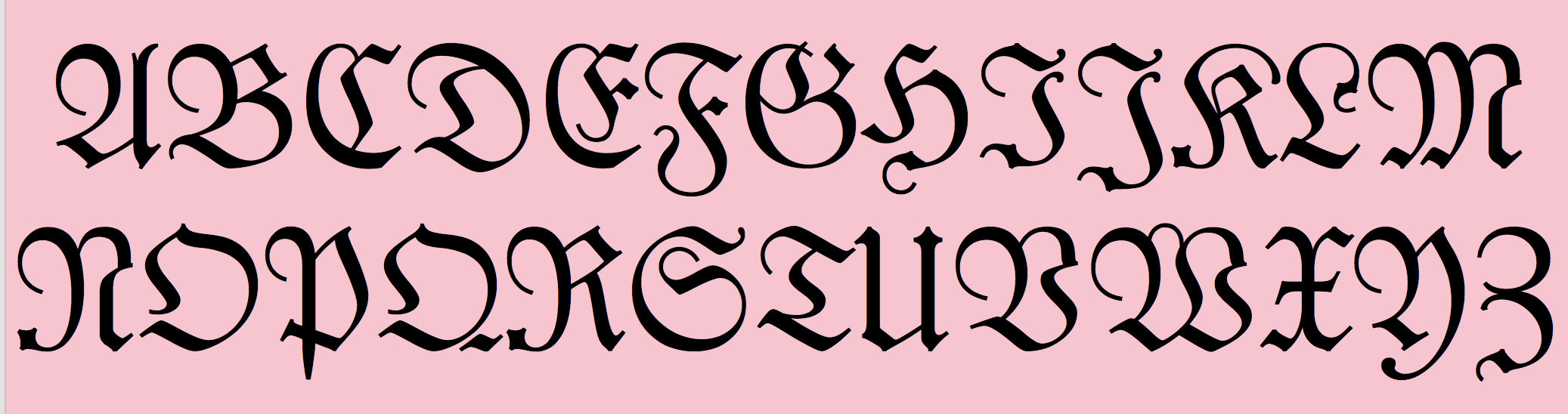
Fraktur BT
Fraktur BT (Bitstream, 1990-1993) was originally called Blackletter 581 by Bitstream. It is mainly used today for mathematical typesetting. It is identical to the earlier font Luthersche Fraktur by Linotype and was part of the heist of Linotype fonts by Bitstream in 1990. |